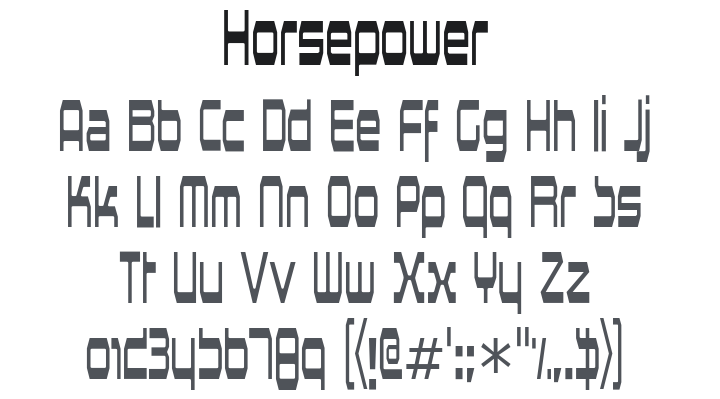
Horsepower Font
About Horsepower
Horsepower is a bold, square-edged technological display typeface with clean, sharp geometric letterforms that convey precision and extraterrestrial enchantment — structured yet striking, with a futuristic authority that feels both digital and mechanical. Great for automotive branding, sci-fi interfaces, tech product headlines, racing game titles, and any design that needs to project advanced, high-performance energy.